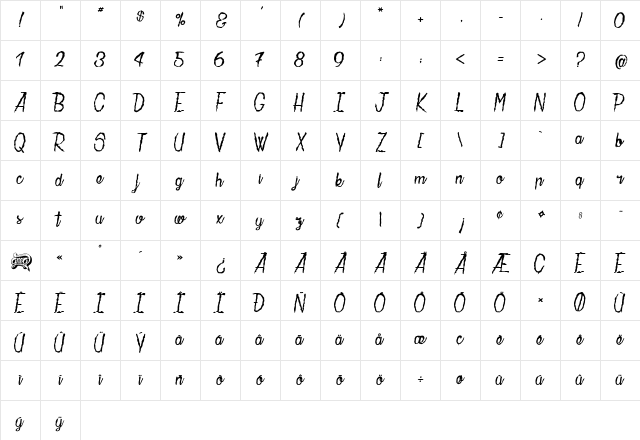
Complete La Maison de Papier Regular glyph index. Displaying only characters natively supported by La Maison de Papier Regular font.
La Maison de Papier is a composed and adaptable typeface that performs quietly and consistently across a wide range of design contexts.